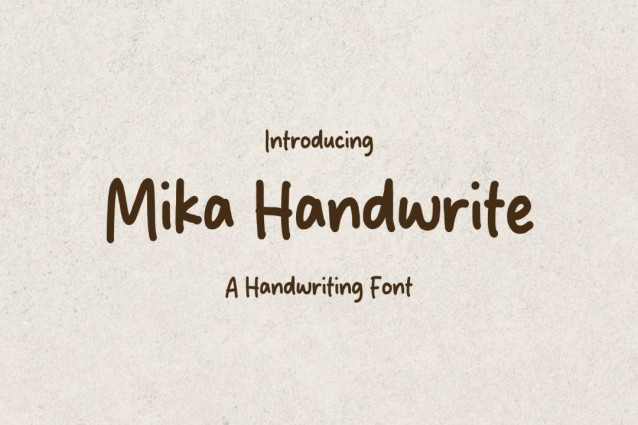
Mika Handwrite Script Font
Mika Handwrite Script Font is a simple and friendly handwritten font. Its natural and unique style makes it incredibly fitting to a large pool of designs. The only limit is your imagination!